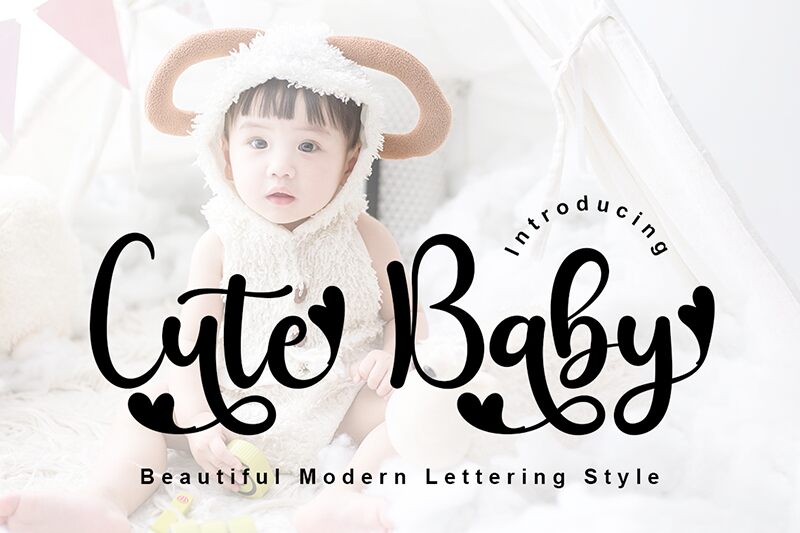
Cute Baby font by Ade Taopiq Patahilah is a free handwritten font with a modern script style. The cheerful letters are large and expressive and in some instances even appear playful, adding immense amounts of personality to your branding. With curved lines at every corner, this friendly addition offers casual letterings that immediately connect the project to its viewers.
Add an approachable feel to your blogs, especially those related to parenting or babysitting, using Cute Baby with your logotypes or website designs. Or use it for children’s literature and digital platforms such as apps and games. It can even be added to invitation cards for baby showers and themed parties!